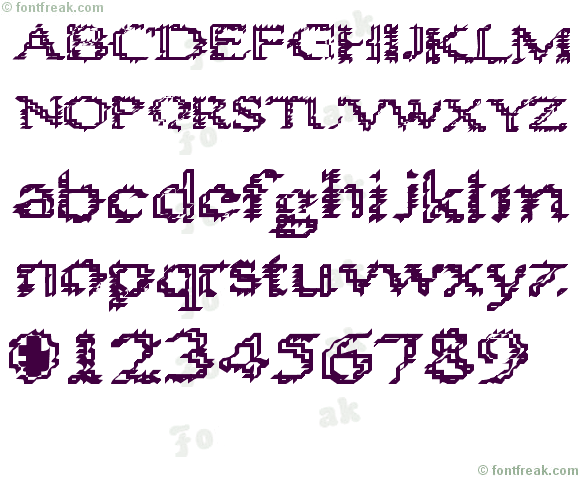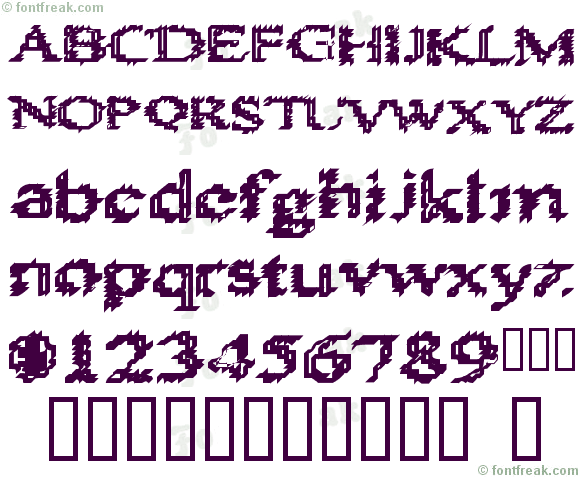
About Heat Sinks 386
Heat Sinks 386 by Omega Font Labs is a unique display font that stands out due to its intriguing visual characteristics. This font features a distinctive design with a rugged, industrial aesthetic that resembles elements of technology and hardware. The stroke weight varies throughout the characters, creating a dynamic contrast that captures the eye. The spacing is thoughtfully crafted, allowing for readability while maintaining a sense of energy and movement. Decorative elements reminiscent of computer components enhance its thematic appeal, making it a perfect choice for tech-oriented projects.
This font is ideal for a variety of specific use cases. It can be effectively utilized in promotional materials for tech events, product packaging for hardware devices, and captivating graphics for video games. Additionally, its bold presence makes it suitable for movie posters, particularly those in the science fiction or action genres. Small business owners in the tech industry can also leverage this font for branding and marketing materials, helping to establish a strong visual identity.
Targeting graphic designers, content creators, and small business owners, Heat Sinks 386 offers a fresh and contemporary option for those looking to make a statement. It speaks to an audience that values originality and wants to convey a strong personality through their design choices.
What truly sets the Heat Sinks 386 font apart is its ability to blend creativity with a technological edge. Whether you are designing a website, creating promotional graphics, or crafting unique merchandise, this font enables you to communicate your message with a distinctive flair. For those interested, the Heat Sinks 386 font free download provides an opportunity to explore its potential without commitment. This font is a stellar choice for anyone aiming to infuse their work with a touch of innovation and style.